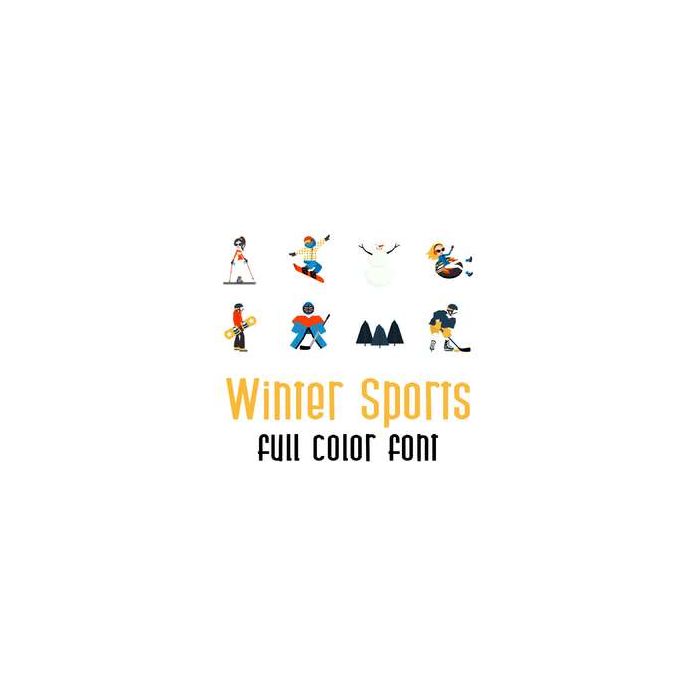
This fun full color doodlebat font features Winter Sports in action! Perfect for cards, crafts, gifts, decor, scrap book pages, planner stickers and more!